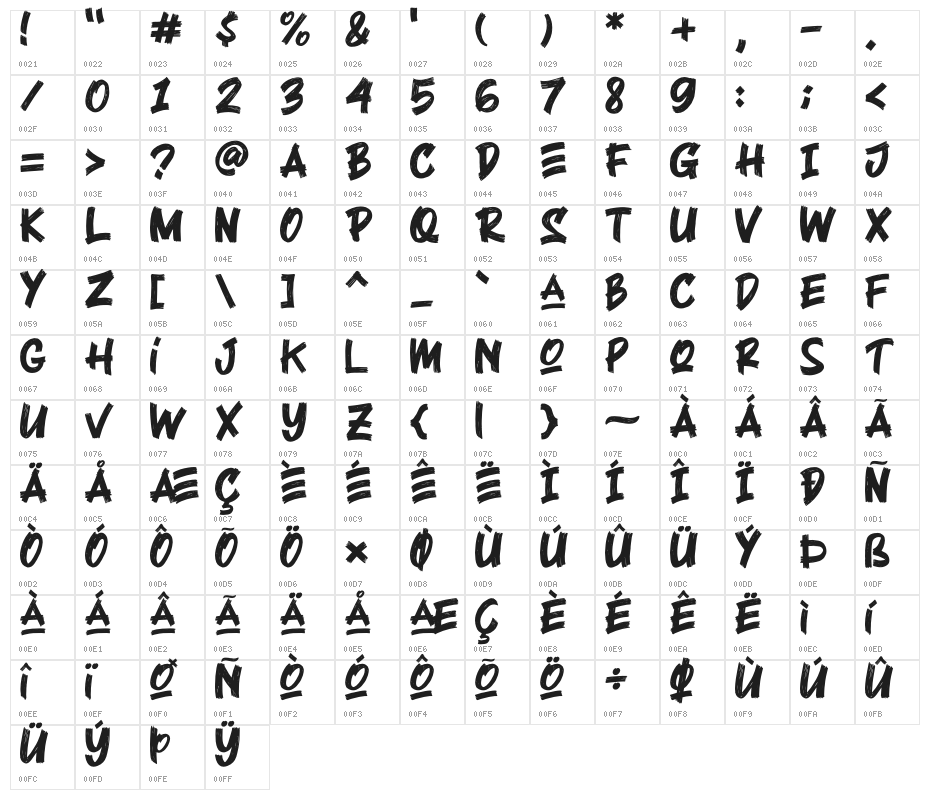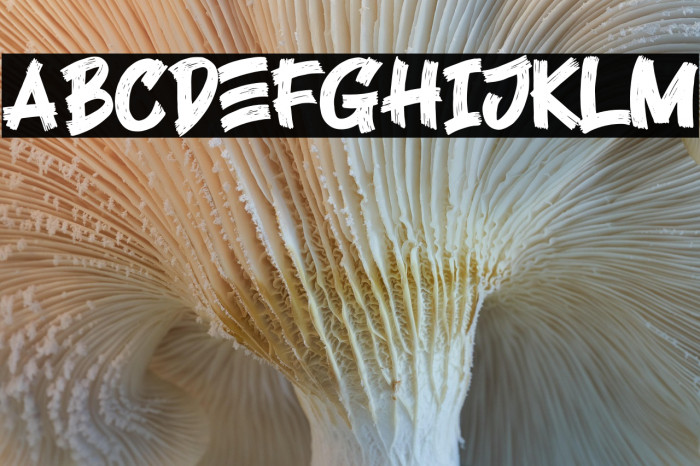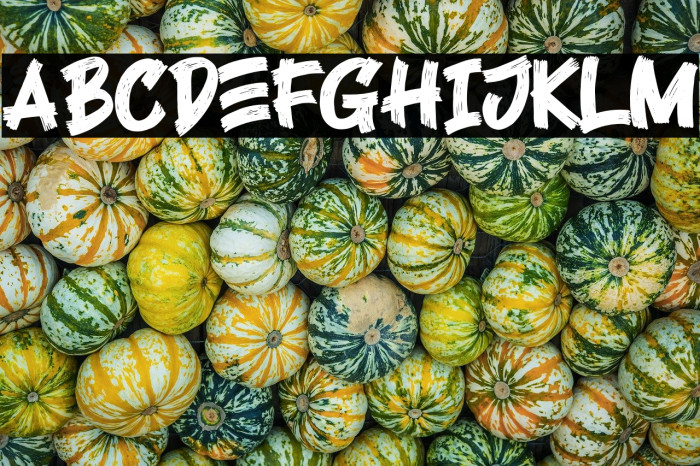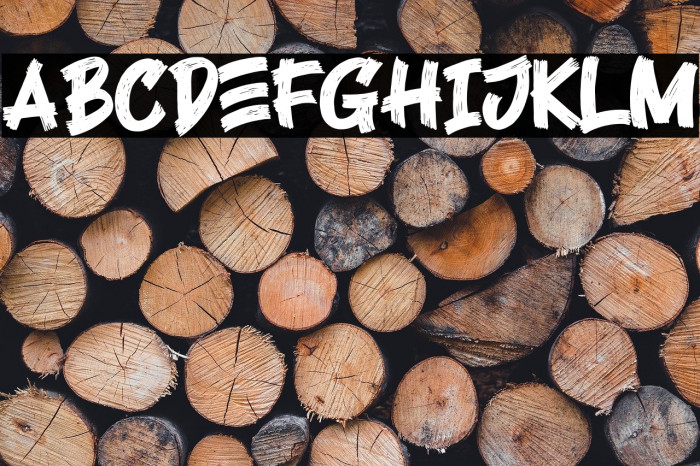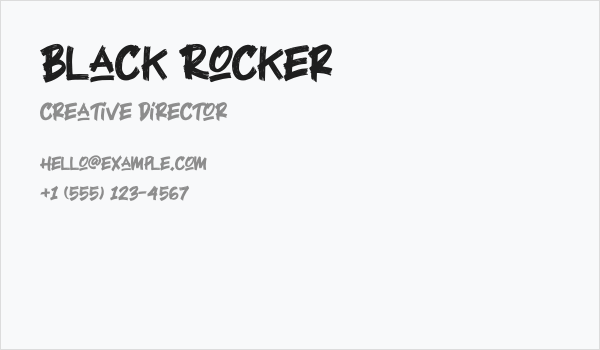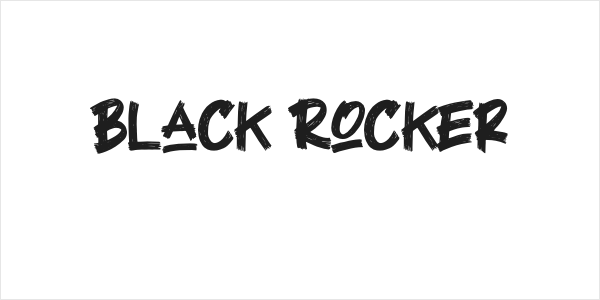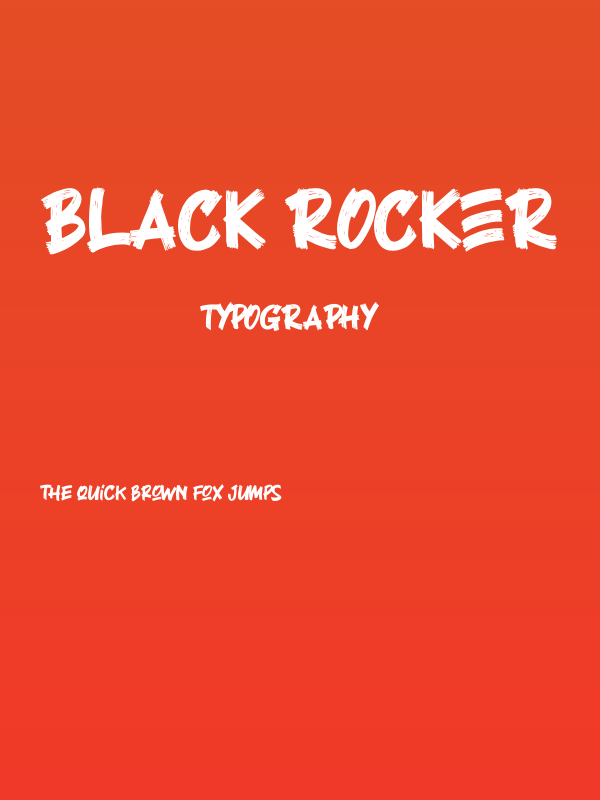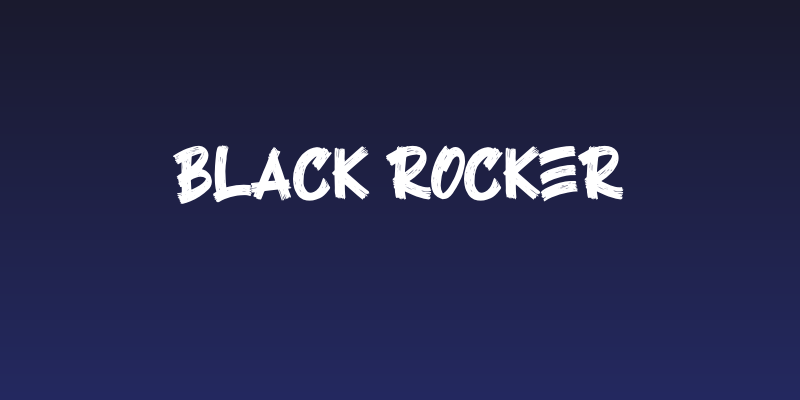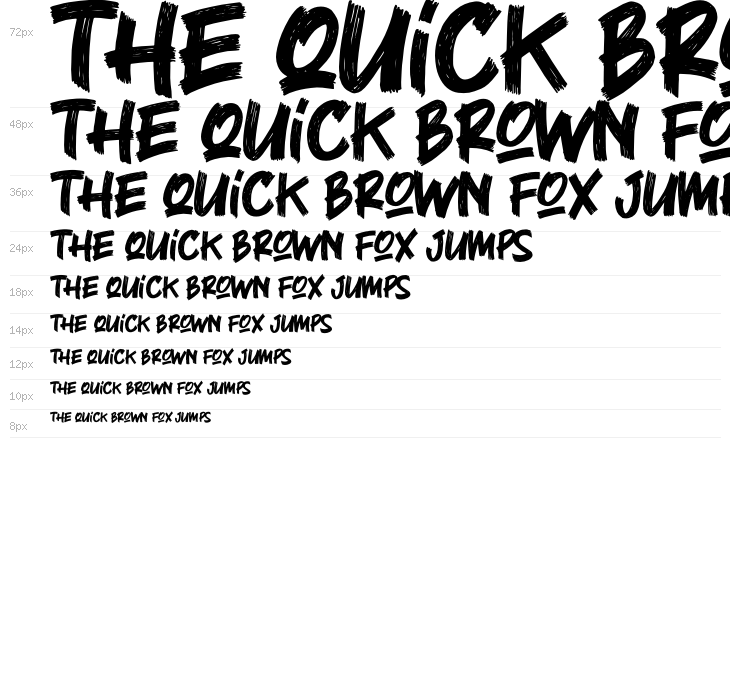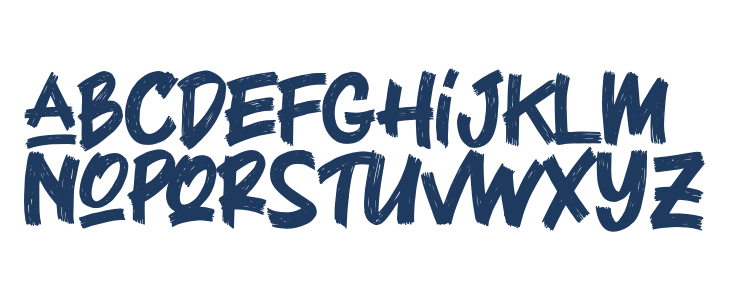
Black Rocker Font
Black Rocker Description
This font exudes a bold, energetic vibe with its brushstroke-like appearance. Each character is crafted with a dynamic, hand-drawn style that gives it a raw and edgy feel. The strokes are thick and uneven, adding to the font's rugged charm. The uppercase and lowercase letters maintain a consistent style, with a slight slant that enhances the font's lively character. Numbers and special characters are equally expressive, making this font versatile for various creative projects. Its unique style is perfect for capturing attention and conveying a sense of movement and excitement.
| Overall Style | Modern, Edgy |
| Proposed Projects | Ideal for music album covers, posters, graffiti art, and branding that requires a bold, energetic touch. |